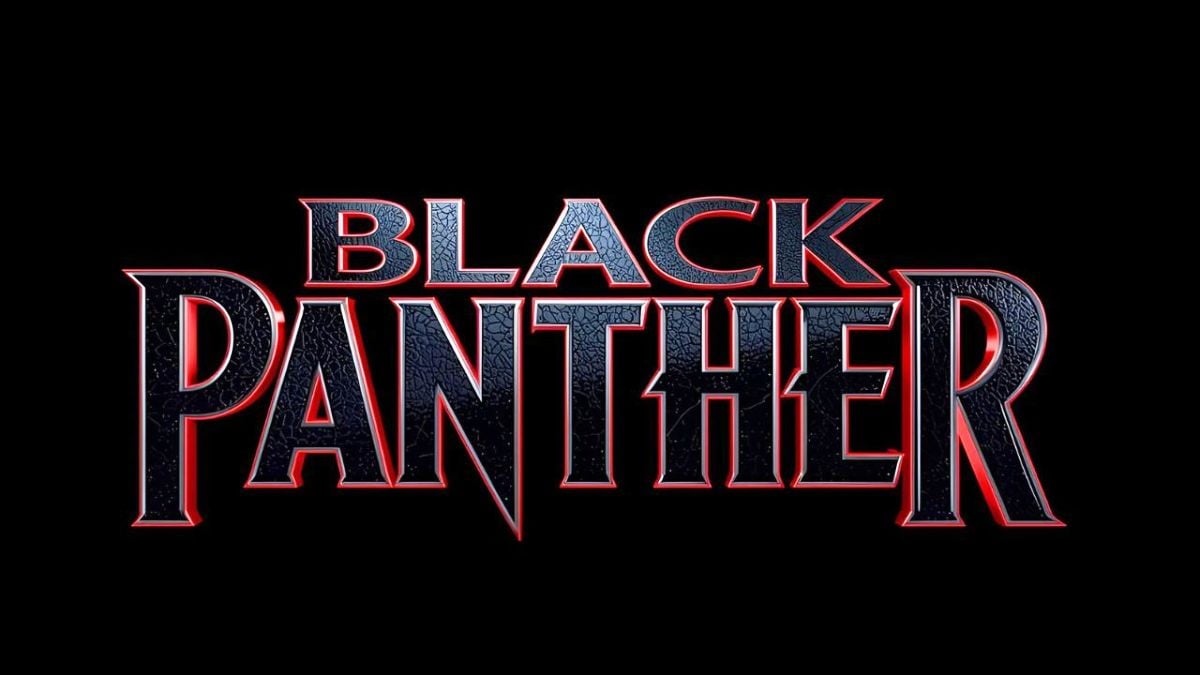
Create epic Wakandan text effects for Black Panther-inspired designs!
Get the authentic Black Panther font – the perfect Wakandan typography for Marvel-inspired designs. Perfect for Black Panther and Wakandan-themed projects.
Black Panther font captures the epic essence of Wakandan royalty and African adventure! This powerful typography brings authentic Marvel character to your text designs. Our Black Panther Font Generator lets you create epic Wakandan text using the authentic Black Panther font. Perfect for Black Panther-themed designs, Wakandan projects, and African content.
Experience the power of Wakanda with our premium Black Panther font that adds royal energy and ancestral spirit to your typography!
Access the authentic Black Panther font for that perfect Wakandan, African typography experience.